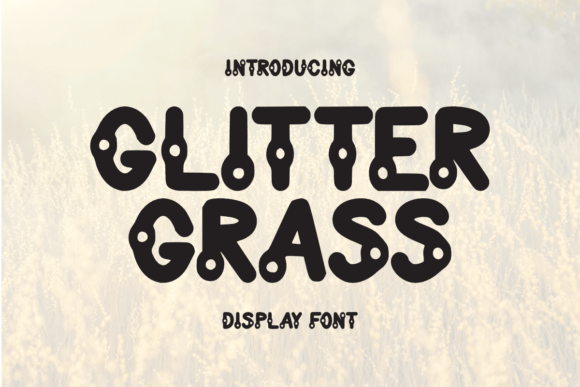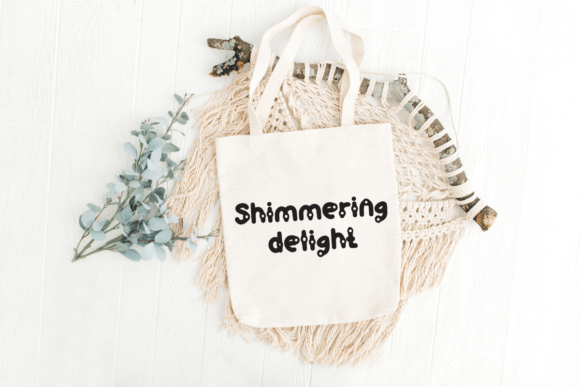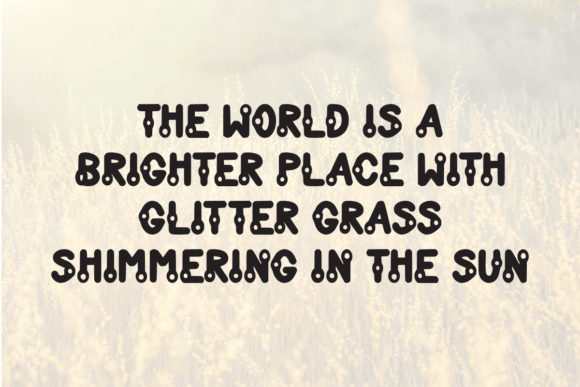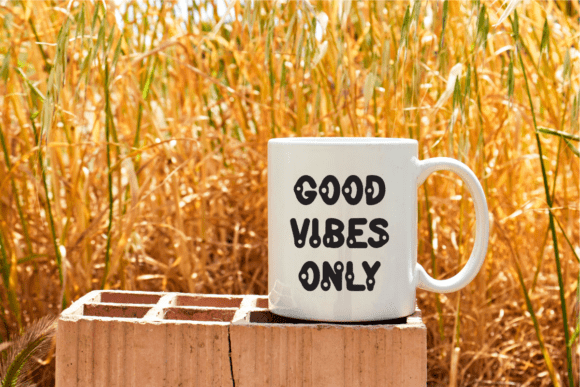
Glitter Grass Font: A Funky Display Font for Playful Branding & Posters!
About the Glitter Grass Font
Explore the possibilities with Glitter Grass Font, a font that offers both beauty and functionality. Glitter Grass is a funky and expressive display font that combines bold geometry with quirky cut-out dots for an imaginative, futuristic look. Perfect for posters, party themes, games, and modern branding projects that need a burst of boldness and creative energy.
Glitter Grass thrives in large-scale applications such as headlines, posters, and logos where its bold geometry and playful cut-outs command attention. It’s ideal for brands targeting younger demographics or projects with a vibrant, energetic personality. Avoid using it for body text or UI elements; its quirky forms are less legible in smaller sizes or continuous text.
For a balanced aesthetic, pair Glitter Grass with a clean sans-serif like Open Sans for readability in supporting text, or a classic serif like Garamond for a sophisticated contrast. A geometric sans-serif such as Montserrat could also create a cohesive, modern feel.
The font’s overall personality is undeniably bold and playful, yet maintains a futuristic edge. It’s a great choice for projects needing a strong visual identity that communicates innovation and fun.
Glitter Grass Font Usage Examples
Glitter Grass Font Example